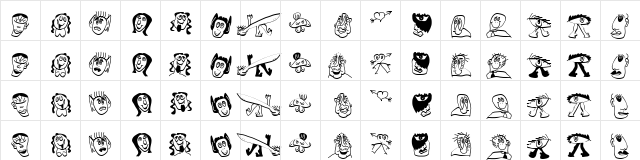
KarlasInterpreted Regular Font Preview
KarlasInterpreted Regular
Design Context for KarlasInterpreted Typeface
KarlasInterpreted is a composed and adaptable typeface that performs quietly and consistently across a wide range of design contexts.